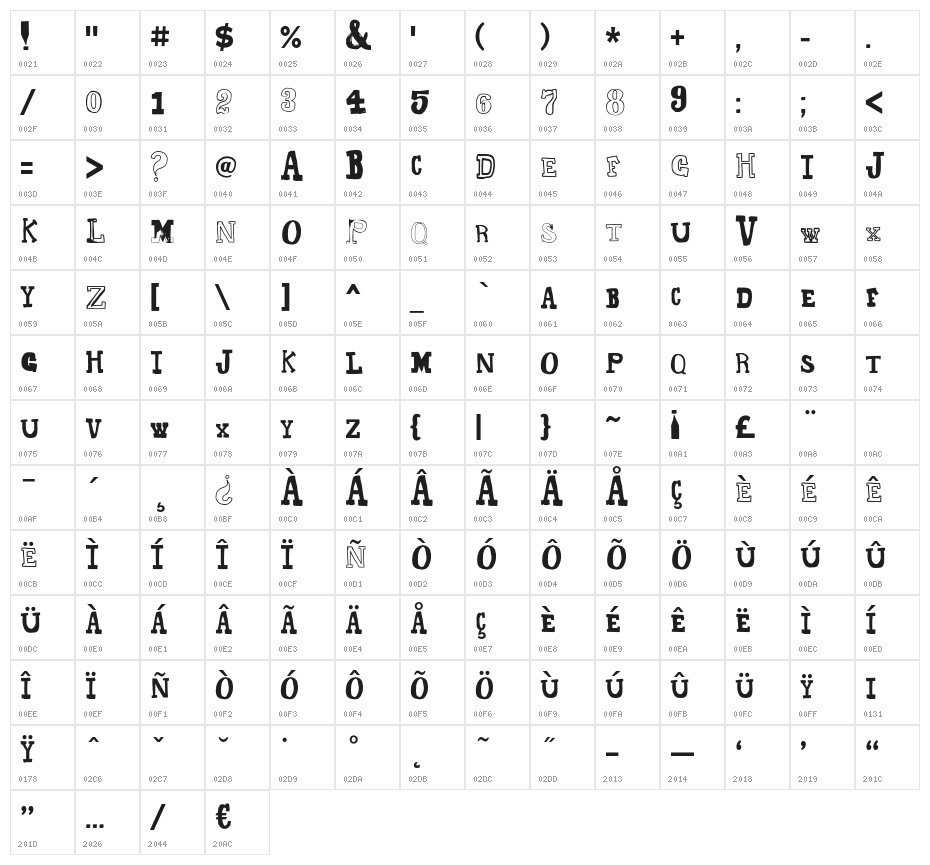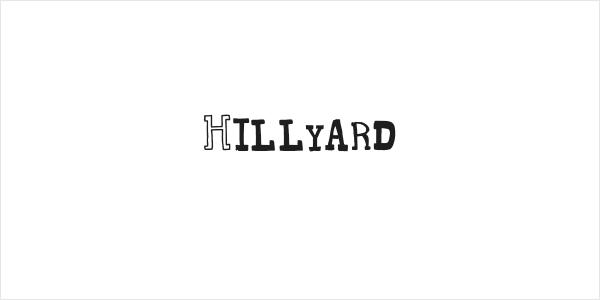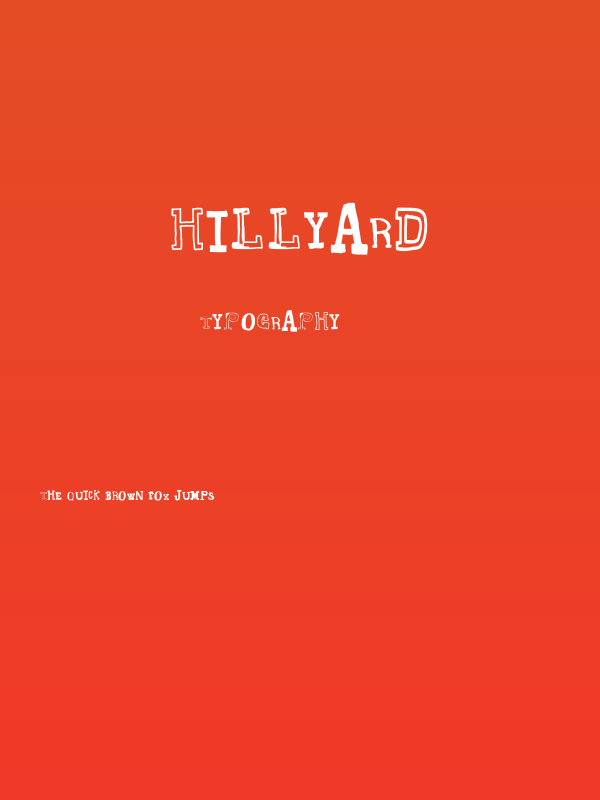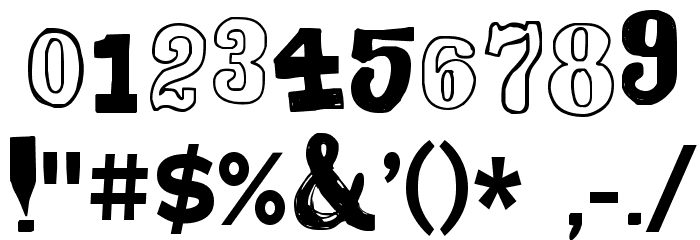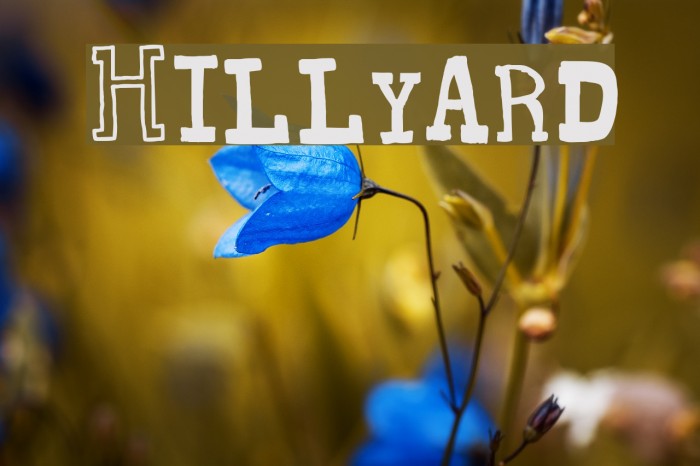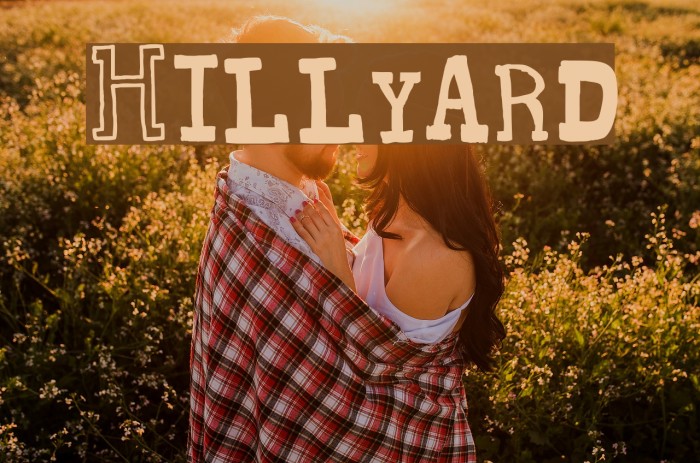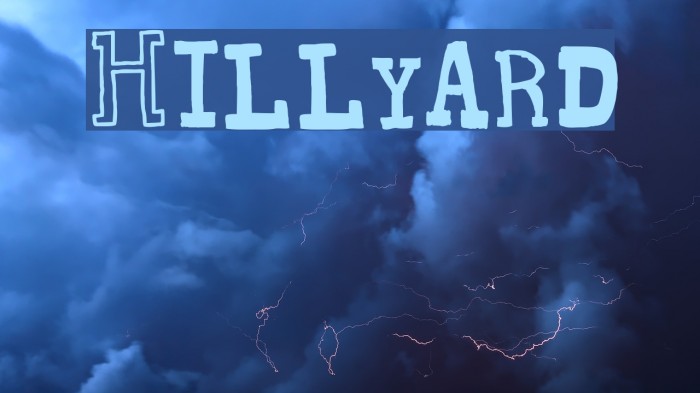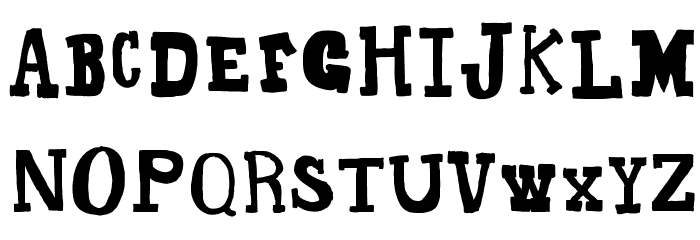
Hillyard Font
Hillyard Description
This font features a playful and eclectic mix of styles, with each character exhibiting unique and varied design elements. The uppercase letters display a combination of bold, thick strokes and thin, delicate lines, creating a dynamic and eye-catching appearance. The lowercase letters continue this theme, with some characters featuring whimsical curves and others maintaining a more straightforward, structured form. The numerals are equally diverse, ranging from bold and blocky to slender and elegant. Special characters are designed with a similar flair, adding to the font's overall quirky and artistic vibe. This font's distinctive style makes it ideal for creative projects that require a touch of individuality and charm.
| Proposed Projects | Ideal for creative projects such as posters, album covers, children's books, and artistic branding. |